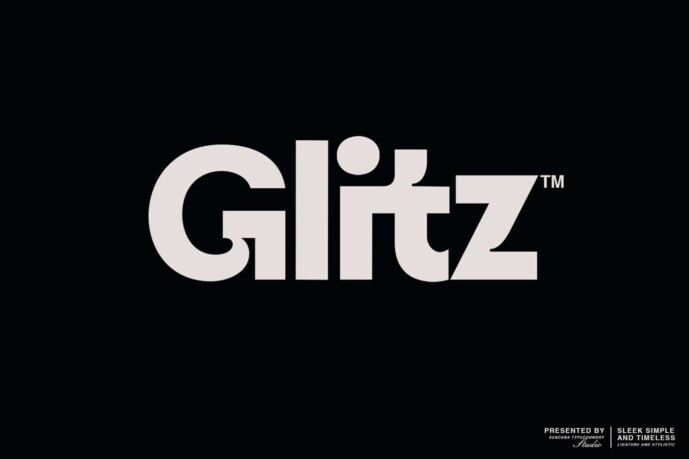
Glitz Font
Glitz is a modern sans-serif typeface that blends elegance, simplicity, and uniqueness in perfect harmony. Designed to create a sleek and polished look, Glitz is ideal for those who seek a refined yet minimalist visual identity.